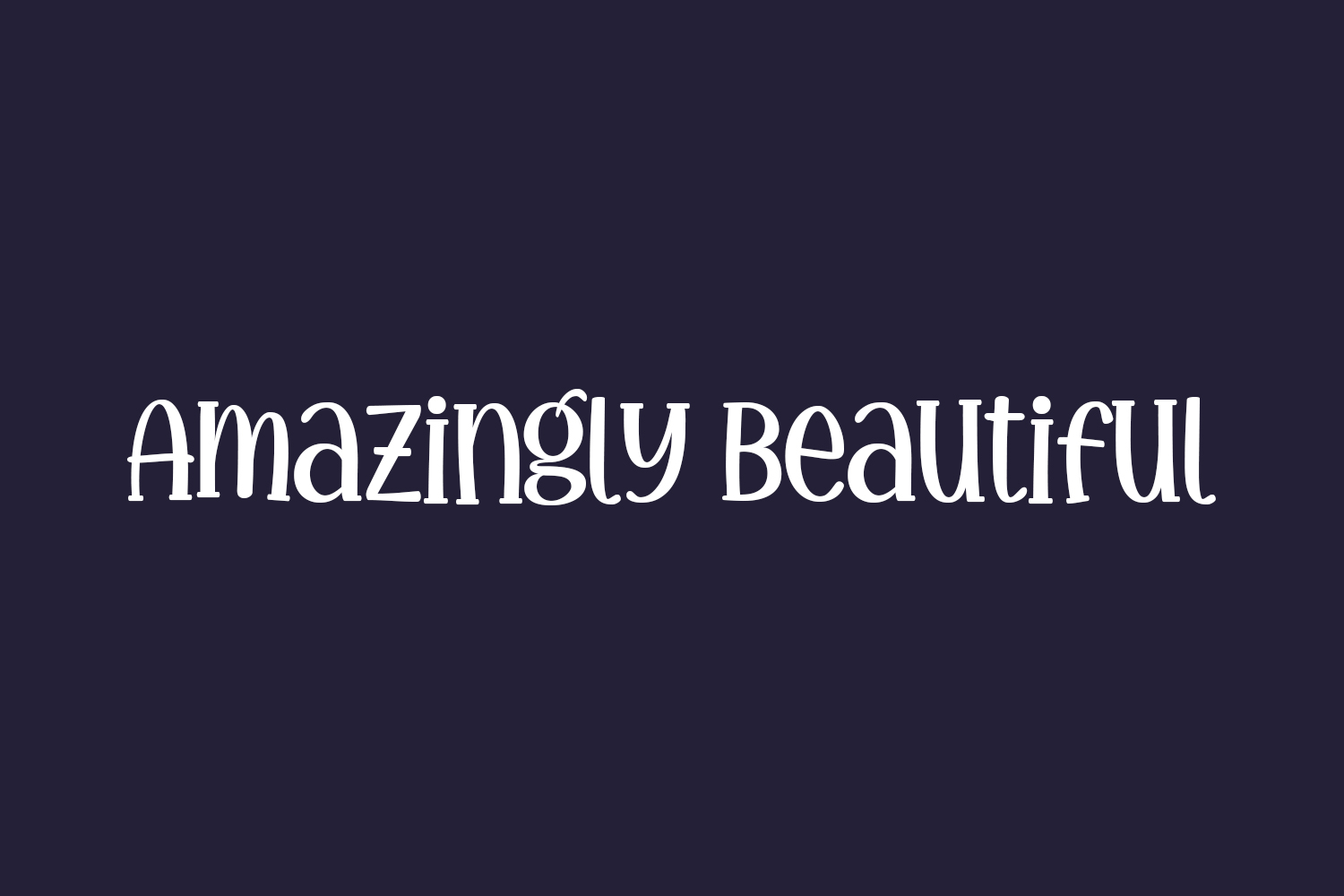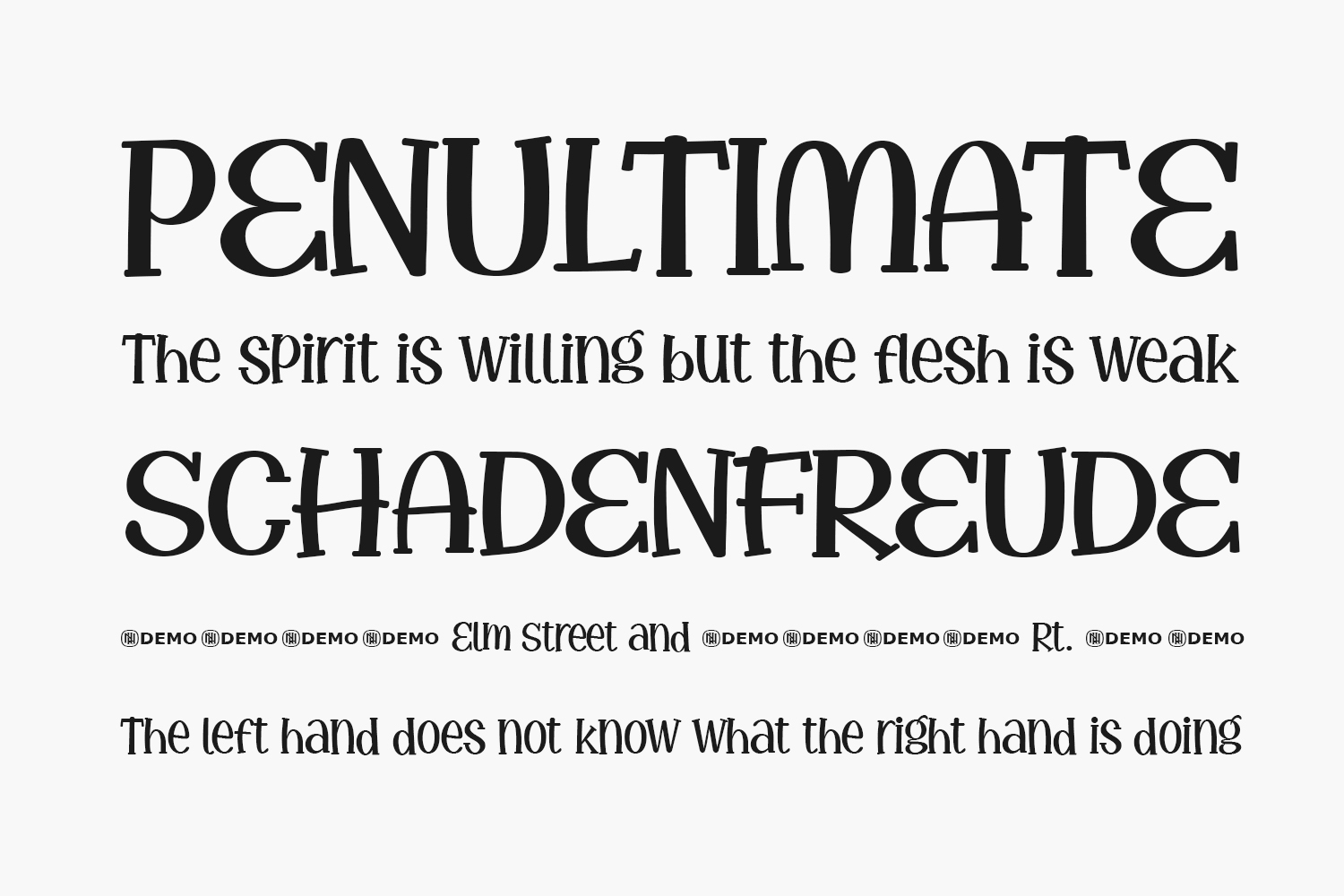
Amazingly Beautiful Free Font is a cute, quirky, and whimsical display font. Whether you use it for cartoon related designs, children’s games, or just any creation that requires a lovely touch, this font will be an amazing choice. Amazingly Beautiful Free Font was designed by Niskala Huruf and is free for personal use only. Please purchase the full version for commercial use.